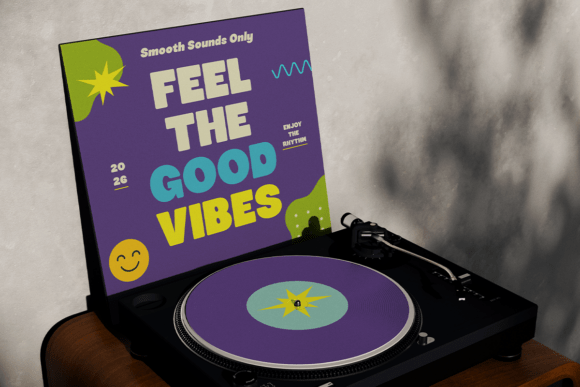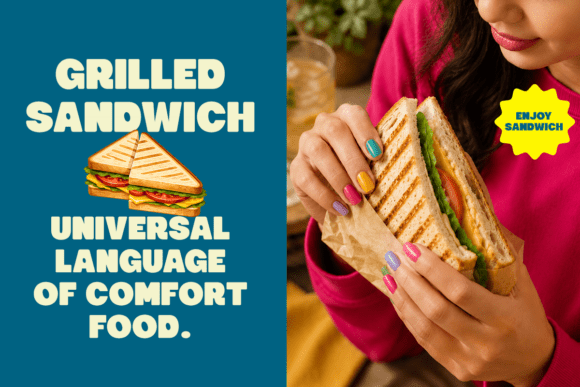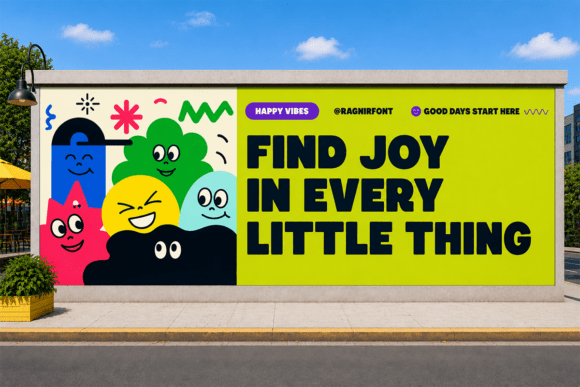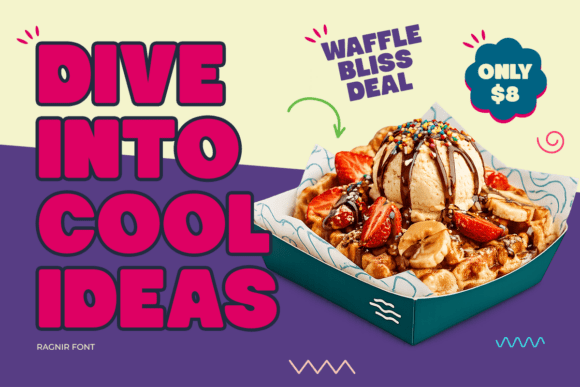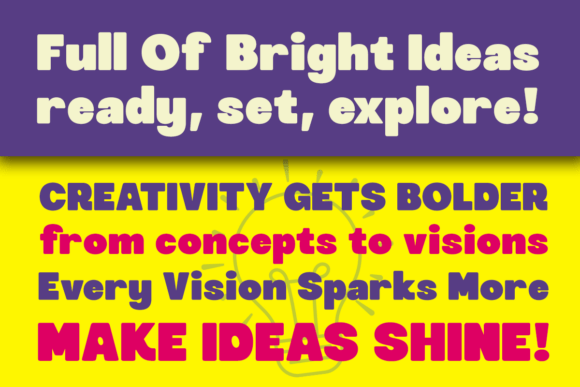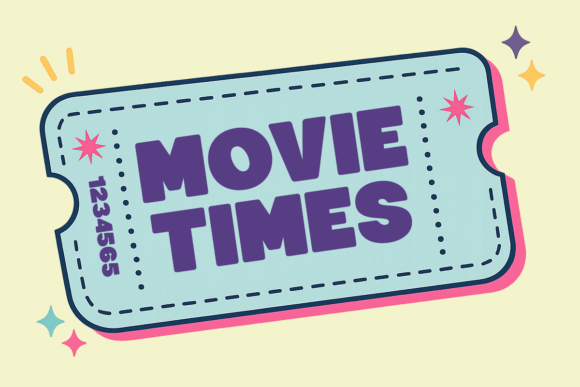
Introduction to Ragnir Font
Have you ever been working on a creative project and needed a font that could command attention instantly? You know, that moment when you want to make a statement, but the words just aren’t getting the reaction you want? That’s where the Ragnir Font comes in – a bold rounded sans serif font designed to make a lasting impression.
As a designer, you’re always on the lookout for that perfect design resource to elevate your work and make it stand out. With its chunky letterforms, soft curves, and playful modern character, the Ragnir Font is the perfect addition to your toolkit. Whether you’re working on a commercial branding project or a creative display work, this font brings maximum impact and versatility across both print and screen designs.
Key Features of Ragnir Font
- High-quality design resource suitable for creative projects, including graphic design, digital art, and publishing.
- Unique characteristics include its bold and modern aesthetic, making it perfect for designers who want to add a touch of sophistication to their creative projects.
Honest Review: Ragnir Font
I recently had the chance to work with the Ragnir Font, and I must say it’s a solid addition to any designer’s toolkit. As a design resource, it offers a unique blend of style and versatility.
What works well: ✨ The font’s transparent background makes it incredibly easy to use as a design element in creative projects. I loved experimenting with layering the font over different images and colors. The font itself has a high quality feel to it, with crisp lines and a wide range of glyphs.
- ✨ Highly customizable
- ✨ Great for digital and print projects
However, I did encounter a few limitations: ⚠️ The font could benefit from a more comprehensive documentation on usage and customization options. Additionally, the font is not as versatile in terms of font sizes and weights as some other popular fonts.
Tips for Getting the Most Out of Ragnir Font
Experiment with different font sizes, colors, and styles to create a unique design. Use the font with a transparent background to add depth and visual interest to your design. Consider pairing the Ragnir Font with other design elements, such as images or graphics, to create a cohesive and engaging design.
Common Use Cases for Ragnir Font
The Ragnir Font is a versatile design resource that can be used for a variety of creative projects, including logos, business cards, and brochures. Its high-quality design and transparent background make it an ideal choice for designers looking to add a touch of elegance and sophistication to their work.